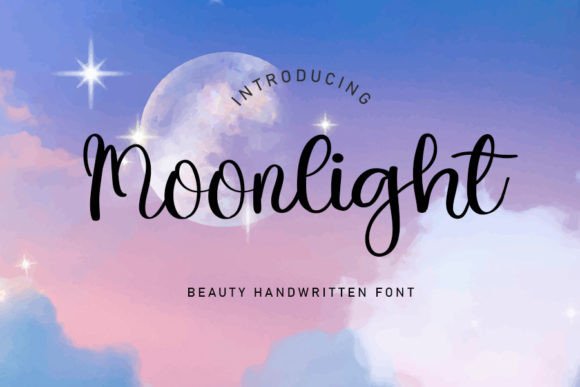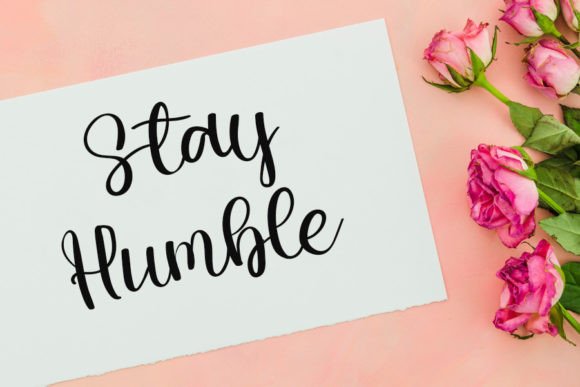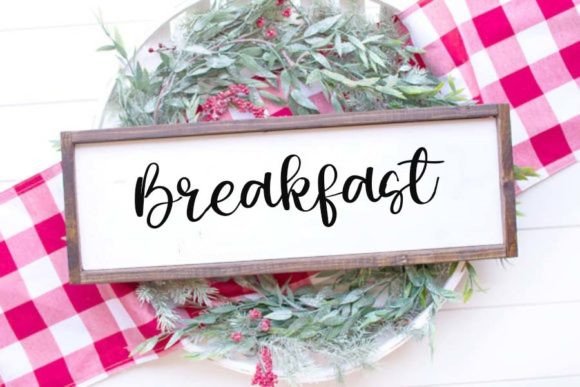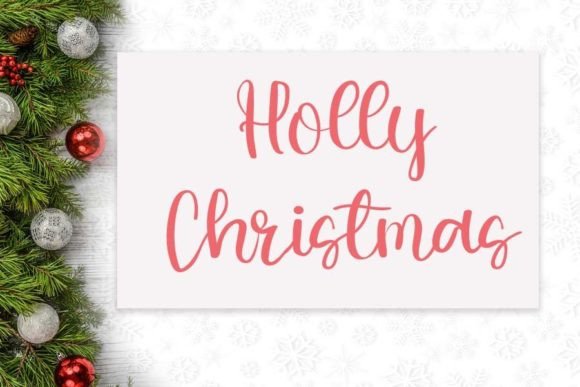
About Moonlight Font
A Whimsical Script with Flowing Elegance
The Moonlight Font download offers a sweet and whimsical handwritten script that adds grace and personality to your designs. With flowing, thin strokes and smooth curves, its characters appear to dance across the baseline, giving every letter a sense of movement and charm.
This font blends elegance and playfulness perfectly, making it suitable for both formal and creative uses. Whether you’re designing for business or personal projects, Moonlight will provide a touch of sophistication.
Perfect for a Variety of Creative Projects
Moonlight Font is a versatile typeface ideal for:
Wedding invitations and stationery
Greeting cards and quotes
Branding and product packaging
Social media graphics and digital content
Event banners and promotional materials
The font’s airy appearance makes it especially beautiful in large headers or logo designs where its details can truly shine.
Add Sparkle to Your Designs
Elegant yet relaxed, Moonlight is designed to bring a luxurious spark to any creation. Its soft and light flow ensures high readability while still delivering artistic flair. From romantic projects to modern branding, it enhances everything it touches.